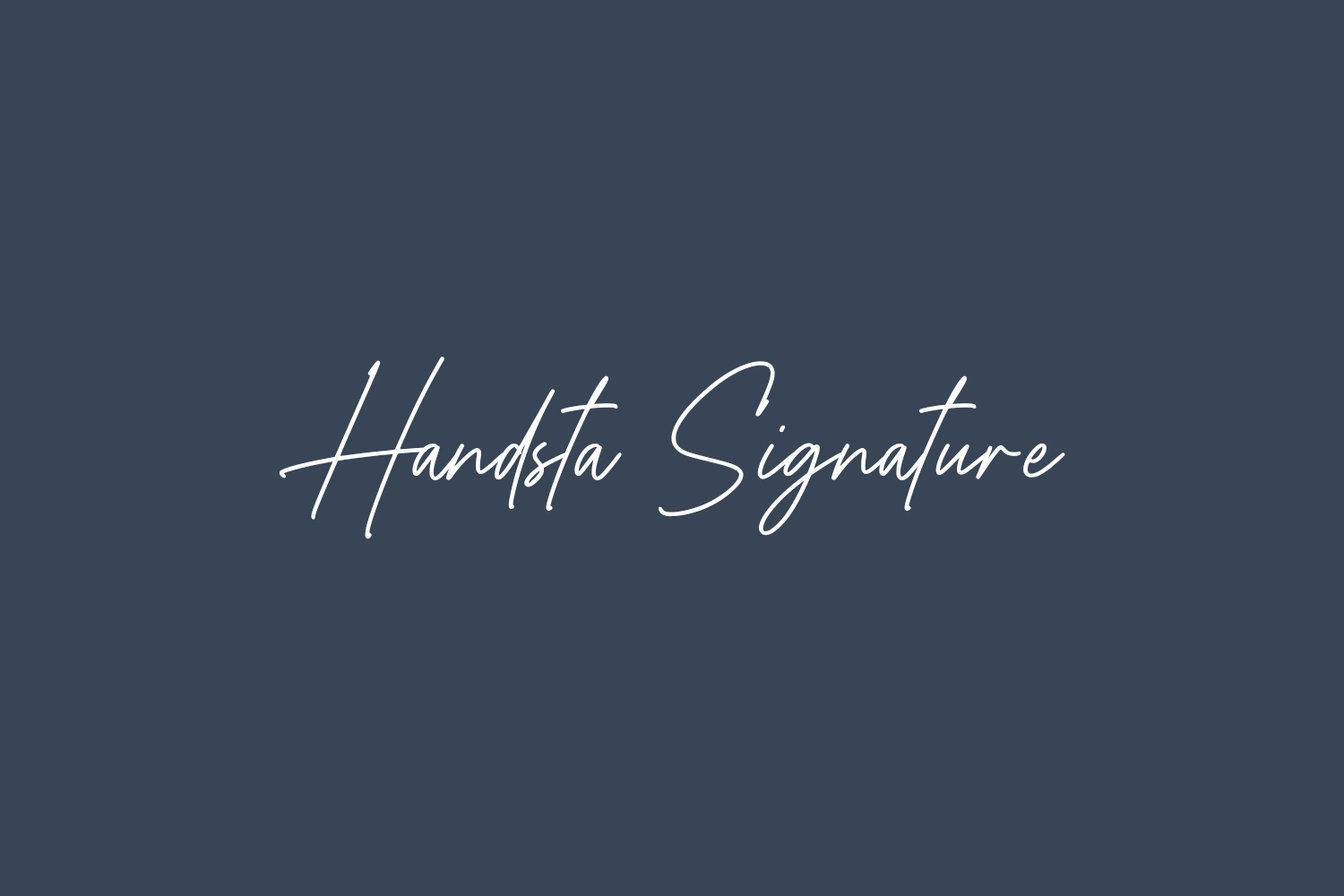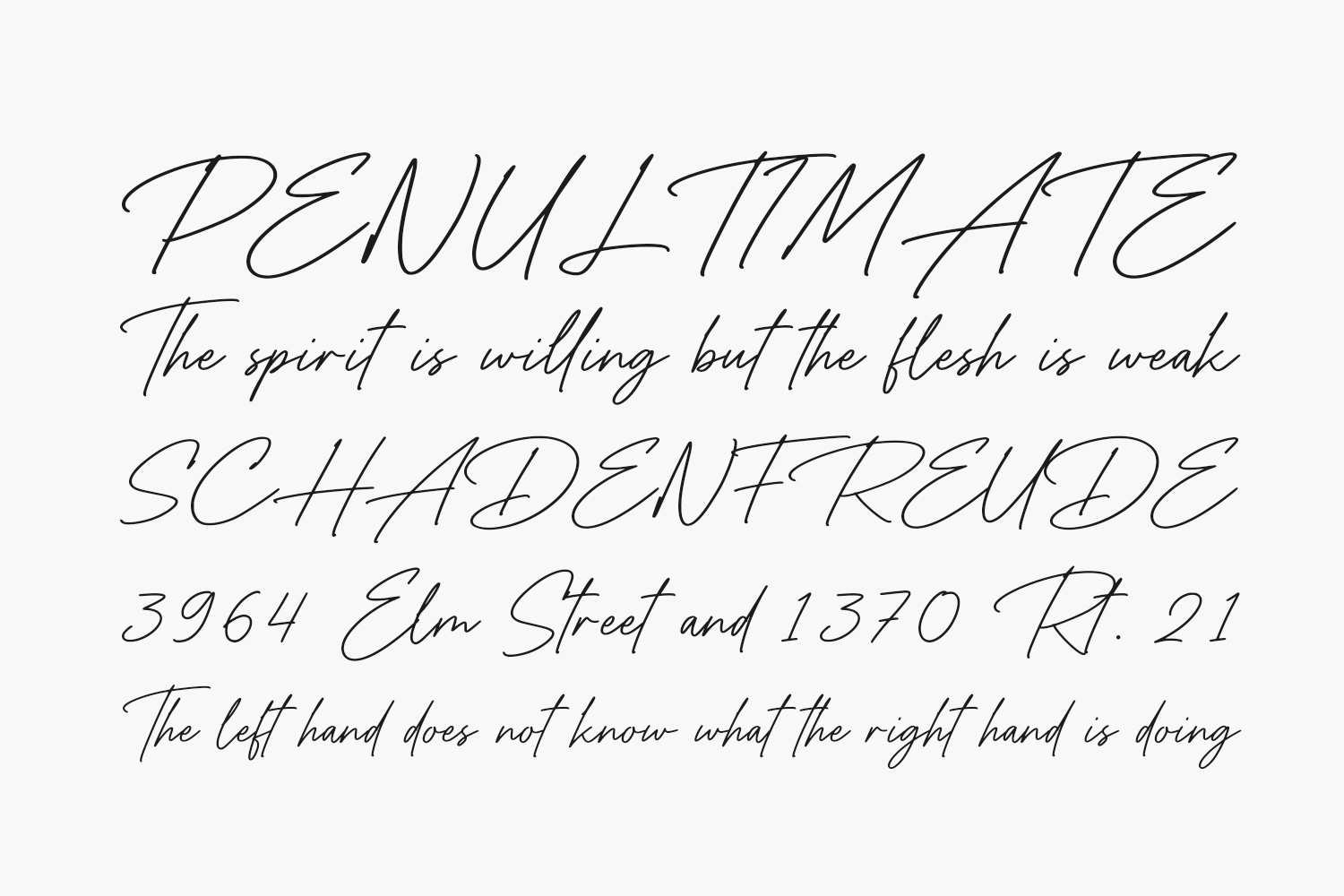
Handsta Signature Free Font is a beautiful script font carefully created with a touch of romance. This is a beautiful combination of timeless elegance and authentic calligraphy. Handsta Signature Free Font is free for personal use only. Please purchase the full version for commercial use.